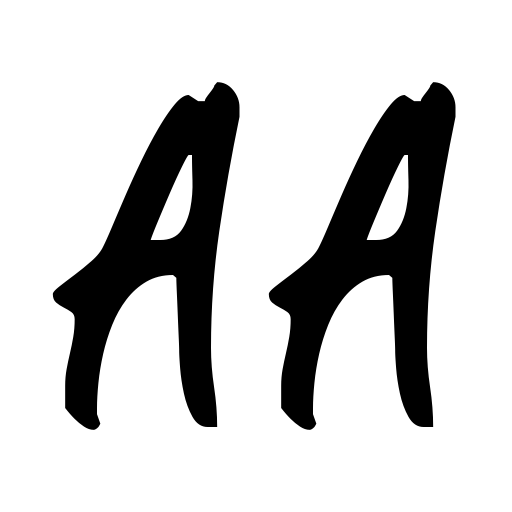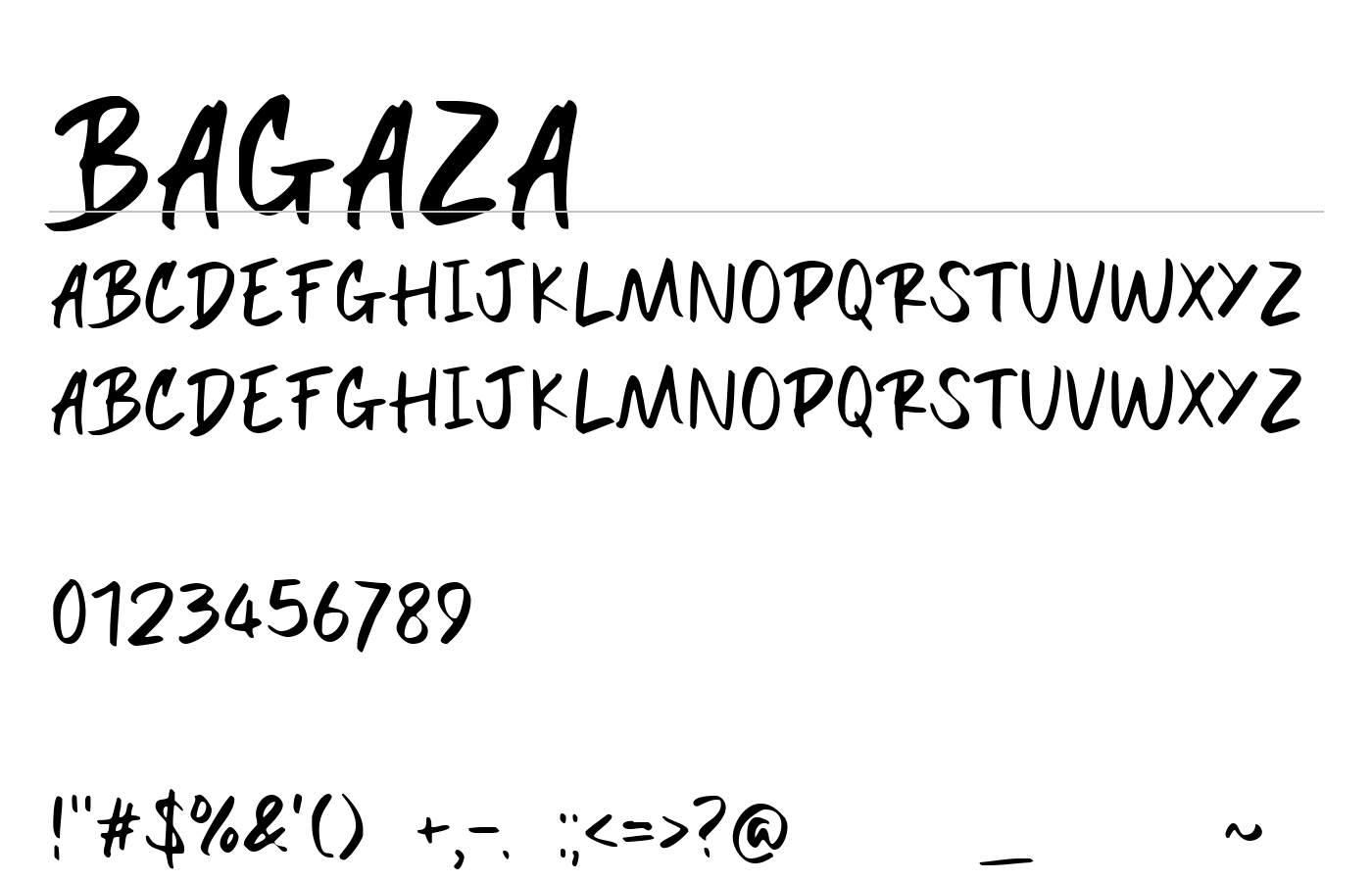
BAGAZA is a lively, hand-drawn sans serif font with a casual and friendly feel. Its irregular strokes and playful shapes give it an authentic, spontaneous look, making it perfect for creative projects, informal branding, and expressive headlines that want to convey warmth and energy. This font works well in contexts where a personal, approachable vibe is needed, such as social media graphics, posters, and product packaging.
BAGAZA Font
About BAGAZA Font